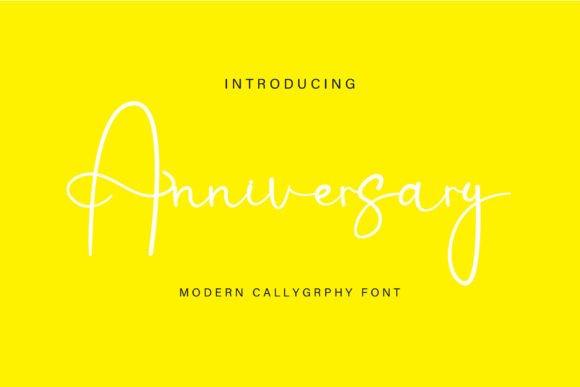
The Anniversary Font: A Sweet and Friendly Handwritten Delight
I’ll never forget the time I was working on a wedding invitation project for a dear friend, and I just couldn’t seem to find the perfect font. The design needed something fresh, neat, and playful, but still elegant and sophisticated. That’s when I stumbled upon the Anniversary font, and it instantly became the perfect fit. In this article, I’ll share my experience with this lovely font, its features, and how to make the most of it in your designs.
- ✅ Fresh and neat handwritten style that’s perfect for wedding invitations, cards, and other designs that need a fun touch
- ✅ Easy to read and understand, even at smaller font sizes
- ✅ Highly versatile and can be used for a wide range of design projects, from digital to print
- ✅ The font comes with a range of OpenType features, glyphs, and stylistic alternates that add to its charm
- ⚠️ Some users might find the font a bit too casual or playful for certain projects
- ⚠️ Limited availability of bold or heavy weights, which might limit its use for certain design applications
The Story Behind Anniversary Font
The Anniversary font was designed by a talented type designer who wanted to create a font that would capture the essence of love and celebration. The font’s fresh and neat handwritten style makes it perfect for wedding invitations, cards, and other designs that need a fun and playful touch. The designer’s inspiration came from traditional handwritten fonts, with a modern twist to make it more versatile and easy to use.
Q: What is the Anniversary font best used for?
A: The Anniversary font is best used for designs that need a fresh and playful touch, such as wedding invitations, cards, and other celebratory designs.
Q: Is the Anniversary font suitable for body text?
A: While the Anniversary font is easy to read, it’s best used for headlines and titles rather than body text. Its playful style may not be suitable for longer blocks of text.